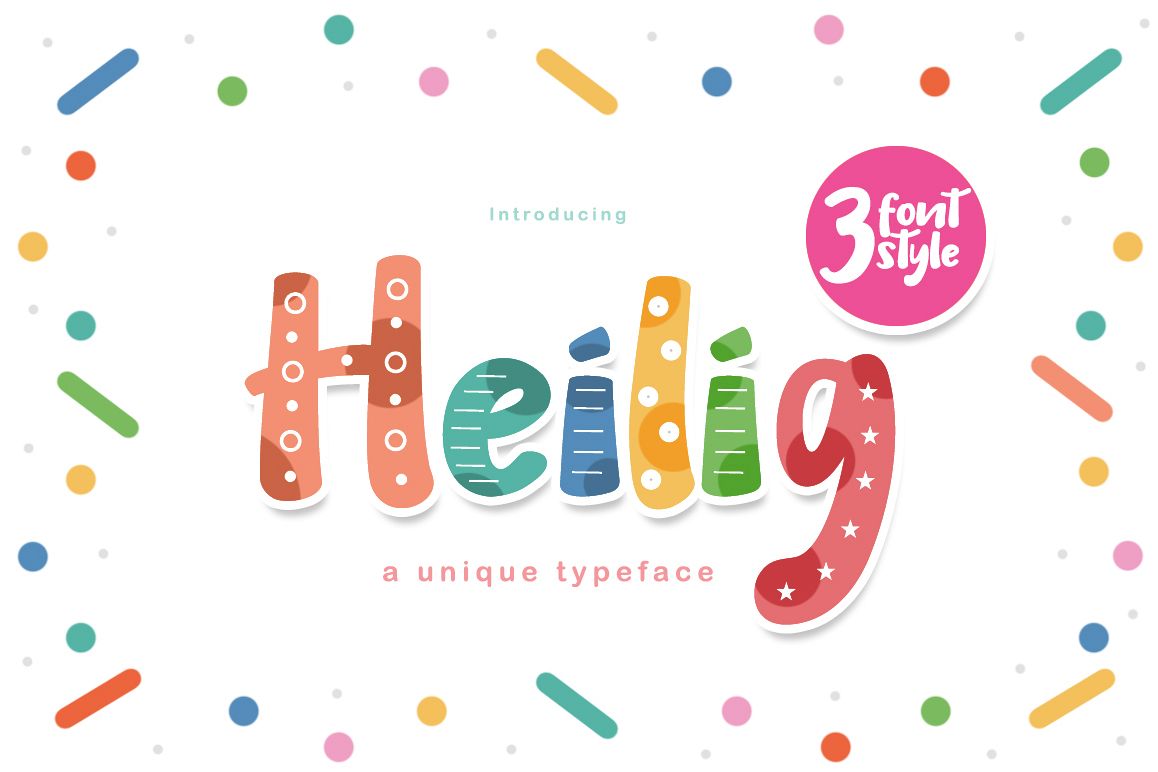
Heilig Display 3 Font
Heilig Display font with children and cheerful theme for your fun project. Heilig Display font has 3 different styles, regular, clean and outline. Heilig Display font suitable for logo, branding, greeting card, branding, poster and any design that you create.